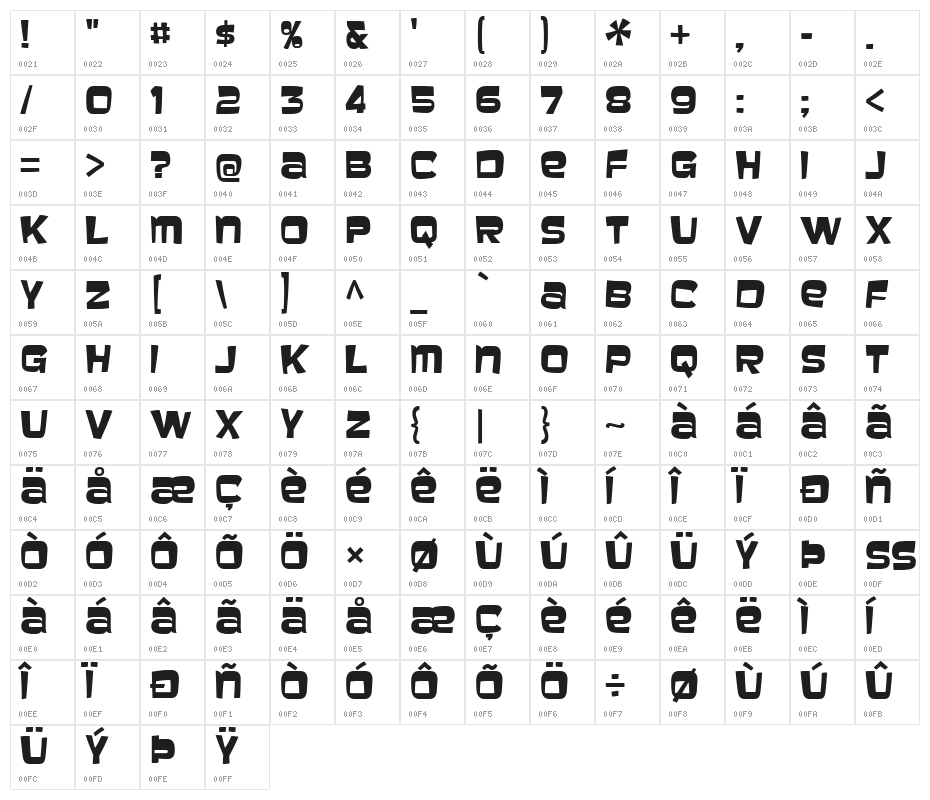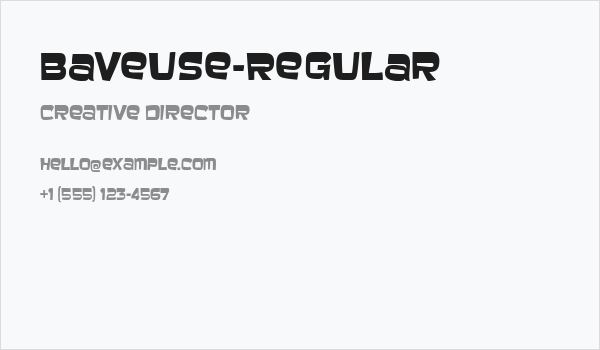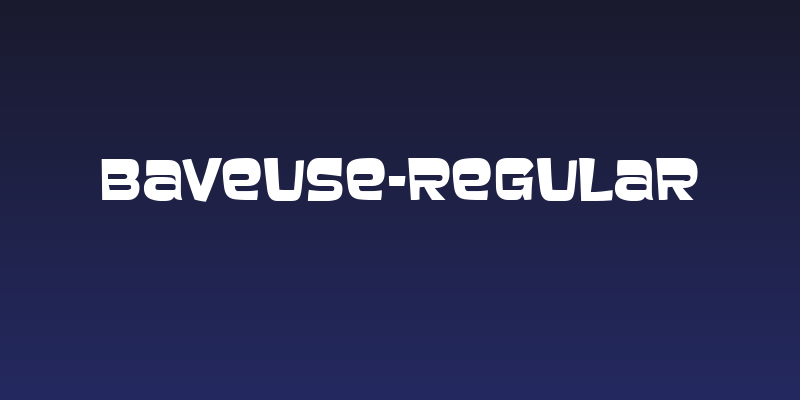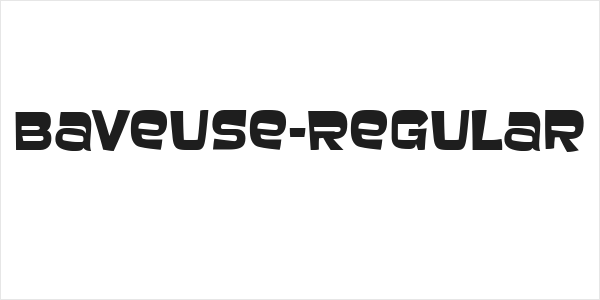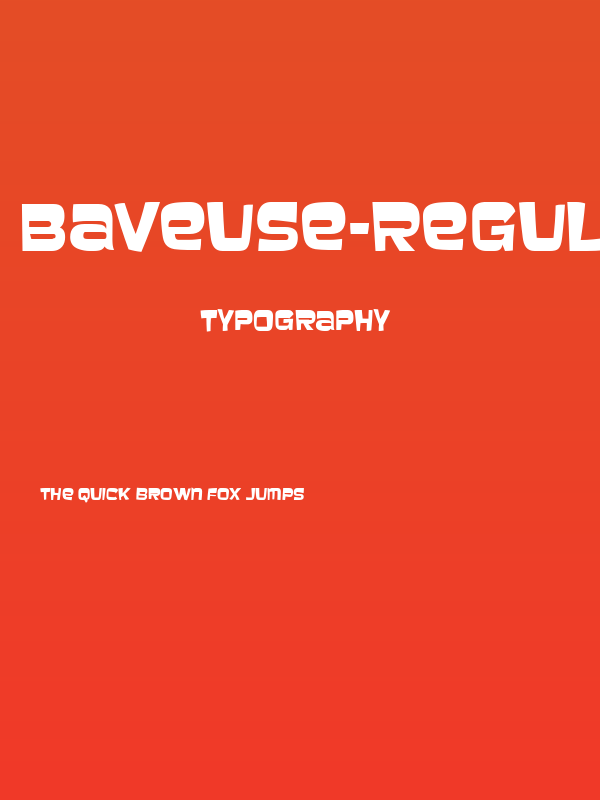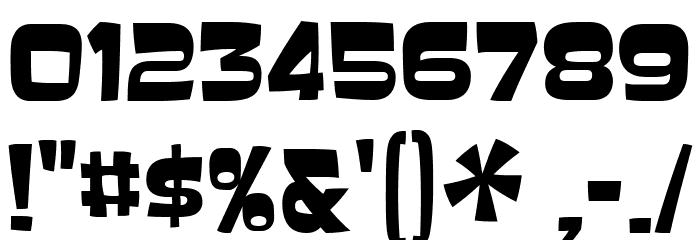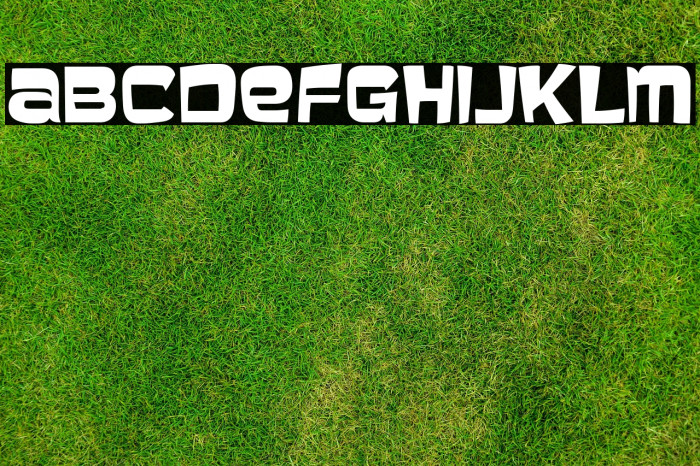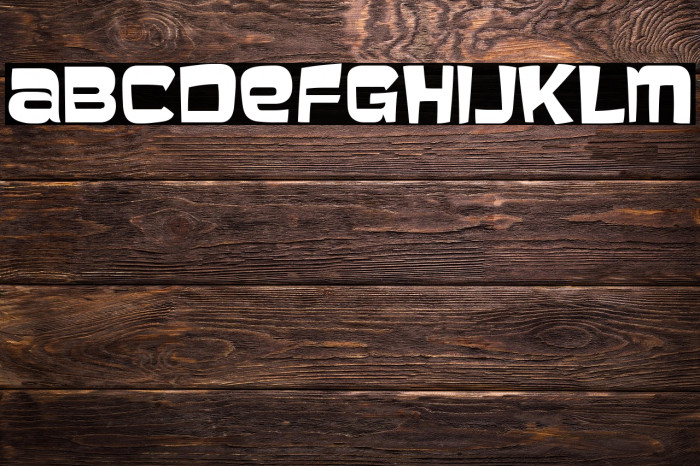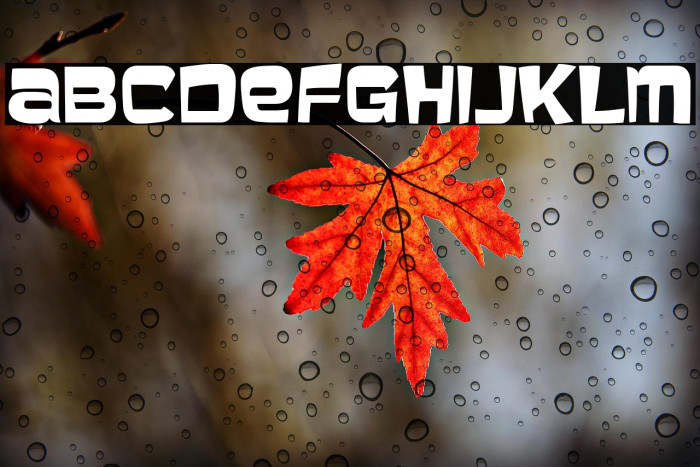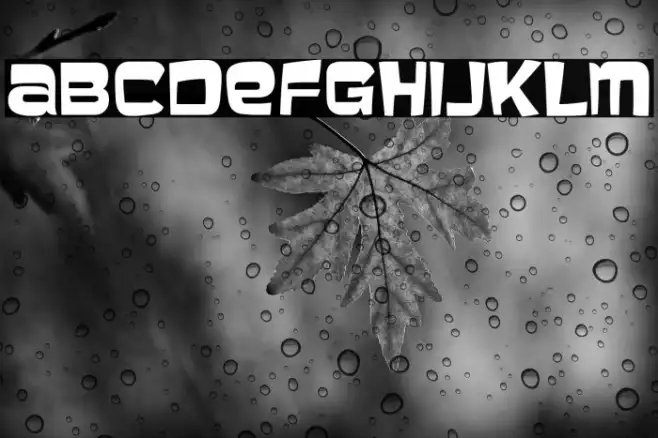
Baveuse-Regular Font
Baveuse-Regular Description
This font features a bold and playful design with a distinctive, chunky appearance. The characters have a slight slant, adding a dynamic feel to the text. The strokes are thick and uniform, creating a strong visual impact. The overall style is quirky and fun, making it suitable for projects that require a lively and energetic vibe. The uppercase and lowercase letters are consistent in style, with rounded edges and a slightly condensed form. Numbers and special characters maintain the same boldness, ensuring a cohesive look across all text elements.
| Overall Style | Playful, Quirky |
| Proposed Projects | Ideal for children's books, comic strips, playful branding, and event posters. |